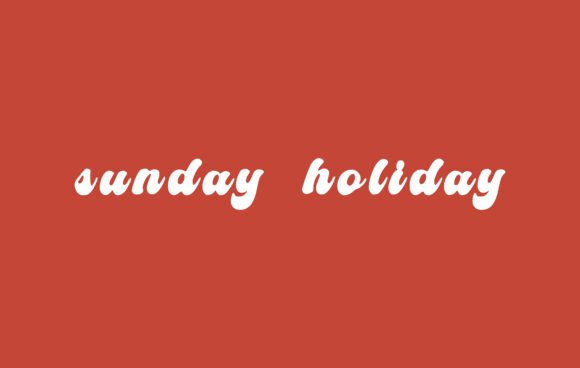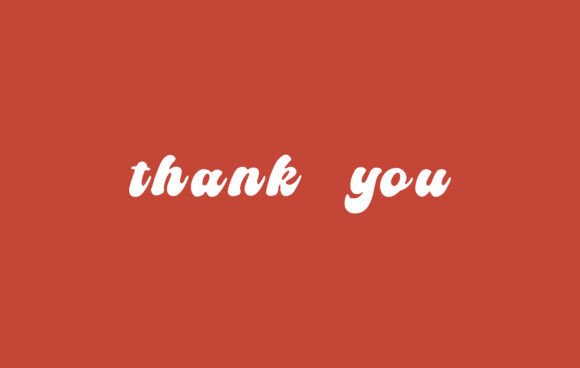
Introduction to Divine Font
Have you ever been working on a creative project, pouring your heart and soul into it, and suddenly, the perfect font appears, elevating your entire design to the next level? That’s exactly what happens when you discover the Divine Font, an authentic handwritten font with a romantic touch. Its expertly designed curves and lines will make your creative ideas shine, and its legibility ensures that it looks great as both a title and body text.
As a designer, you know how valuable a high-quality design resource can be. The Divine Font is one such treasure, perfect for magazine headlines, social media, branding, wedding invitations, and cards. With its transparent background, you can easily customize it to fit your project’s needs. And the best part? It’s available for free download, making it an instant favorite among designers.
Whether you’re working on a personal or professional project, the Divine Font is sure to bring a touch of elegance and sophistication to your design. So, what are you waiting for? Dive into the world of creative possibilities with the Divine Font and take your design to new heights.
Key Features of Divine Font
- High-quality, vector-based design with a transparent background, ideal for use in creative projects.
- Features a unique, elegant design with a range of customization options, allowing designers to tailor it to their specific needs.
- Resolution-independent, ensuring that it remains crisp and clear at any size or resolution.
- Supports a wide range of languages, making it a versatile design resource for international projects.
- Includes multiple font styles and weights, providing designers with a comprehensive set of options for their creative project.
- Designed to be highly legible and readable, even at small sizes, making it perfect for use in various design contexts.
Honest Review: Divine Font
As a designer, I’m always on the lookout for high-quality design resources that can elevate my creative projects. I recently came across the Divine Font, and I’m excited to share my honest review with you.
- ✨ Beautiful, intricate design with a unique aesthetic
- ✨ Highly versatile and suitable for a wide range of creative projects
- ✨ Offers a transparent background, making it easy to layer with other design elements
- ⚠️ Limited font sizes and weights available
Overall, I’m impressed with the Divine Font’s unique design and versatility. While it may have some limitations, it’s definitely a valuable addition to any designer’s toolkit. If you’re looking for a high-quality, free download font to elevate your creative project, I’d definitely recommend checking out the Divine Font.
Designing with Divine Font in PowerPoint/Word
Open PowerPoint or Word and select the Divine Font from the font library. You can use the font to create engaging presentations, reports, or documents. With a free download available, you can access the font without any additional costs.
Tips for Getting the Most Out of Divine Font
To get the most out of Divine Font, experiment with different font sizes, colors, and styles to find the perfect combination for your design. You can also use the font in conjunction with other design resources to create unique and eye-catching graphics.
Common Use Cases for Divine Font
Divine Font is ideal for a variety of creative projects, including logo design, graphics, presentations, and documents. With its high-quality design and transparent background, you can use the font to create professional-looking designs that stand out from the crowd.
Q: Does the Divine Font have a transparent background?
Yes, the Divine Font has a transparent background, making it easy to use in designs with complex backgrounds. The font is designed to be versatile and suitable for a variety of creative projects, from logos to graphics.
Q: What is the quality of the Divine Font?
The Divine Font is a high-quality design resource, carefully crafted to ensure crisp and clear rendering in various applications. It’s optimized for use at different font sizes and resolutions, making it perfect for both digital and print projects.